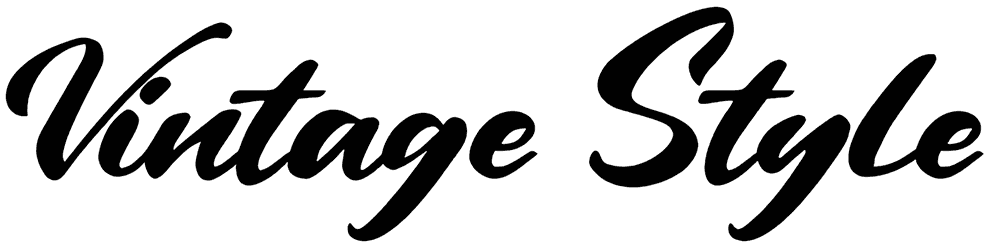
Vintage Style Font
Are you chasing a script font with a clean, feminine, and glamorous look? So you are standing in the right place! Vintage Style has delightful tails and swashes that can turn any simple and basic artwork into an exceptional and memorable design.
This font, with its rhythmic letters, can give joy and spirit to any project. So design a social media post, T-shirt printed text, tattoo, or business card with Vintage Style right now and see the effect.